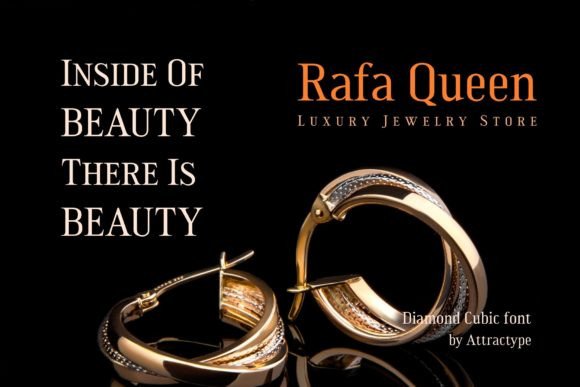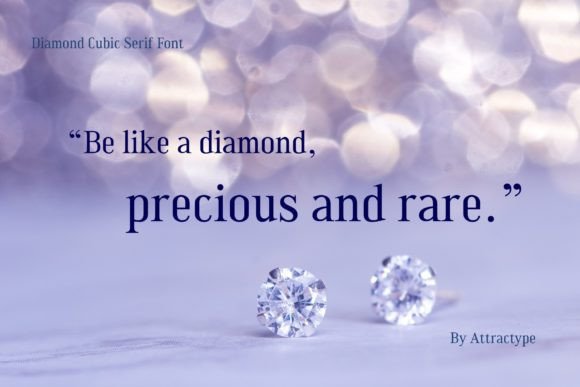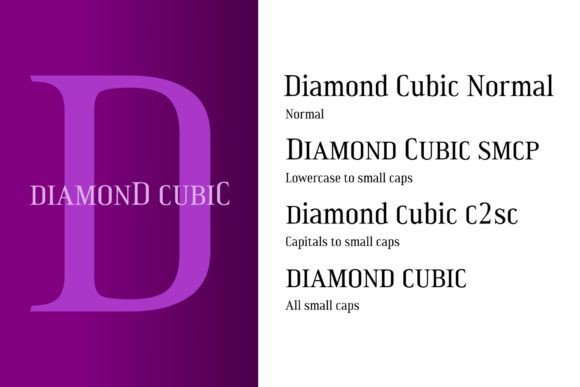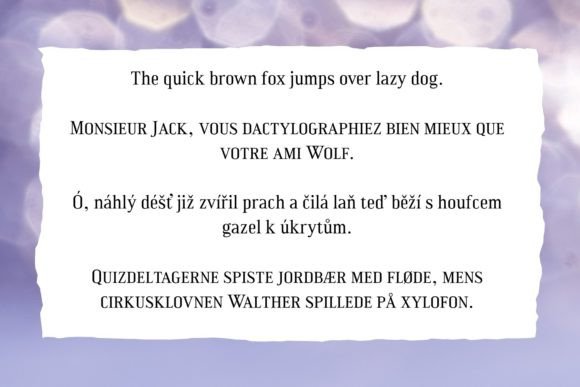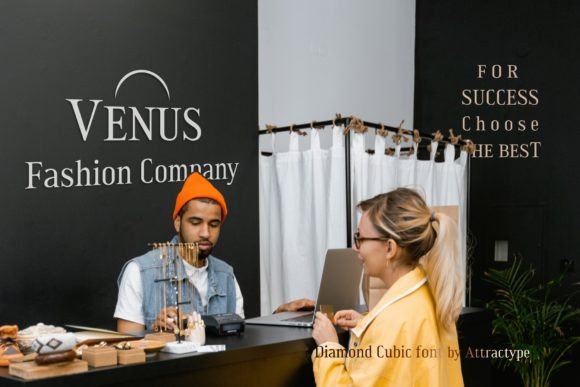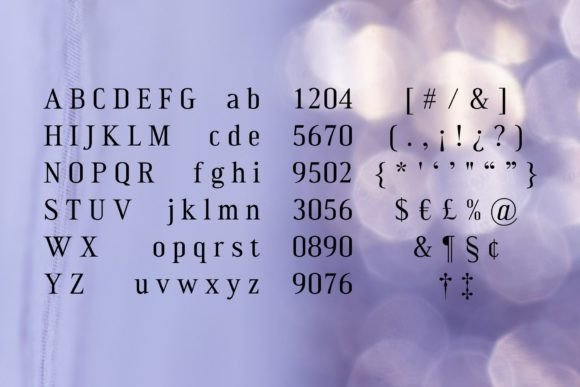
Diamond Cubic Font: Elevate Your Designs with a Modern Serif
In the world of typography, fonts play a crucial role in conveying messages, evoking emotions, and creating visual identities. For designers and crafters, finding the perfect font can be a daunting task. However, if you’re looking for a modern serif font that combines geometrical precision with a condensed design, look no further than Diamond Cubic.
What is Diamond Cubic Font?
Diamond Cubic is a contemporary serif font that boasts a unique blend of geometric and traditional elements. Its design makes it particularly effective for space economizing, allowing you to convey your message with clarity and precision, even in tight spaces. Whether you’re working on a branding project, website design, or crafting a marketing campaign, Diamond Cubic is a versatile font that can adapt to your needs.
Key Features of Diamond Cubic Font
- Geometrical Design: Diamond Cubic’s design is rooted in geometric shapes, giving it a modern and sleek appearance.
- Condensed Style: The font’s slightly condensed design makes it perfect for projects where space is limited, without sacrificing readability.
- Modern Serif: Diamond Cubic’s serif design adds a touch of sophistication and elegance, making it suitable for a wide range of applications.
- Legibility: The font’s clear and precise lines ensure excellent legibility, even at smaller sizes.
Why You Need Diamond Cubic in Your Fonts Library
As a designer or crafter, having a diverse and versatile font library is essential. Diamond Cubic is a must-have addition to your collection for several reasons:
- Versatility: Diamond Cubic can be used in various contexts, from digital media to print materials, and from headings to body text.
- Uniqueness: The font’s distinctive design sets it apart from more traditional serif fonts, allowing you to create standout designs.
- Efficiency: Its condensed design enables you to make the most of your available space, making it ideal for projects with layout constraints.
- Professionalism: Diamond Cubic’s modern and sleek appearance lends a professional touch to your designs, helping you to establish credibility and authority.
How to Use Diamond Cubic Font Effectively
To get the most out of Diamond Cubic, consider the following tips:
- Headings and Titles: Use Diamond Cubic for headings and titles to create visual impact and draw attention.
- Body Text: For longer blocks of text, use Diamond Cubic at a slightly larger size to maintain readability.
- Combine with Other Fonts: Experiment with pairing Diamond Cubic with sans-serif fonts for a harmonious contrast.
- Colors and Textures: Play with different colors and textures to add depth and visual interest to your designs.
Diamond Cubic is a powerful addition to any designer’s or crafter’s font library. Its unique blend of geometric and traditional elements, combined with its condensed design, makes it an excellent choice for a wide range of projects. With its versatility, legibility, and professional appearance, Diamond Cubic is poised to elevate your designs and help you achieve your creative goals.
In conclusion, if you’re looking for a modern serif font that can help you create stunning designs, look no further than Diamond Cubic. Add it to your fonts library today and discover a world of creative possibilities!